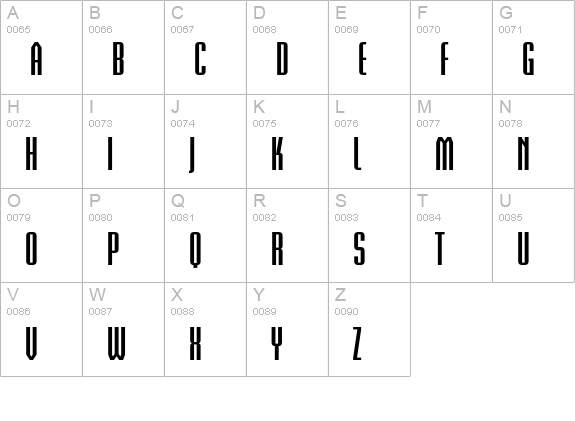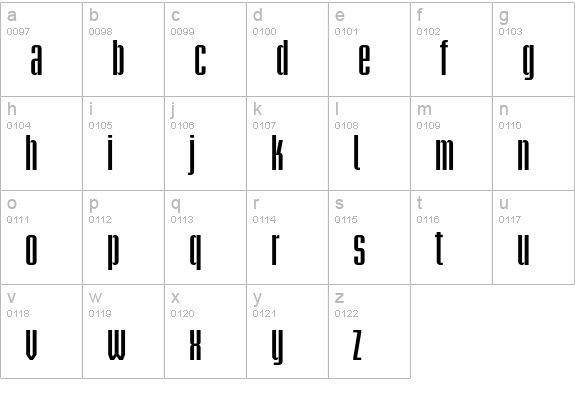
Briem Akademi Std Bold Condensed is a strong, high-contrast, condensed-width variant in the Briem typeface family \xE2\x80\x94 well suited to headlines, attention-grabbing titles, and strong calls-to-action.
Briem Akademi Std Bold Condensed is a striking and modern font that exudes confidence and sophistication. Its bold and condensed design makes it perfect for creating eye-catching headlines and titles. This font strikes the perfect balance between elegance and readability, making it suitable for a wide range of design projects. What's even better is that Briem Akademi Std Bold Condensed is available for free download at FontsMarket.com. This means that you can easily access this stylish font to elevate your design projects without any cost. Don't miss out on the opportunity to enhance your creations with the sleek and impactful Briem Akademi Std Bold Condensed font today!